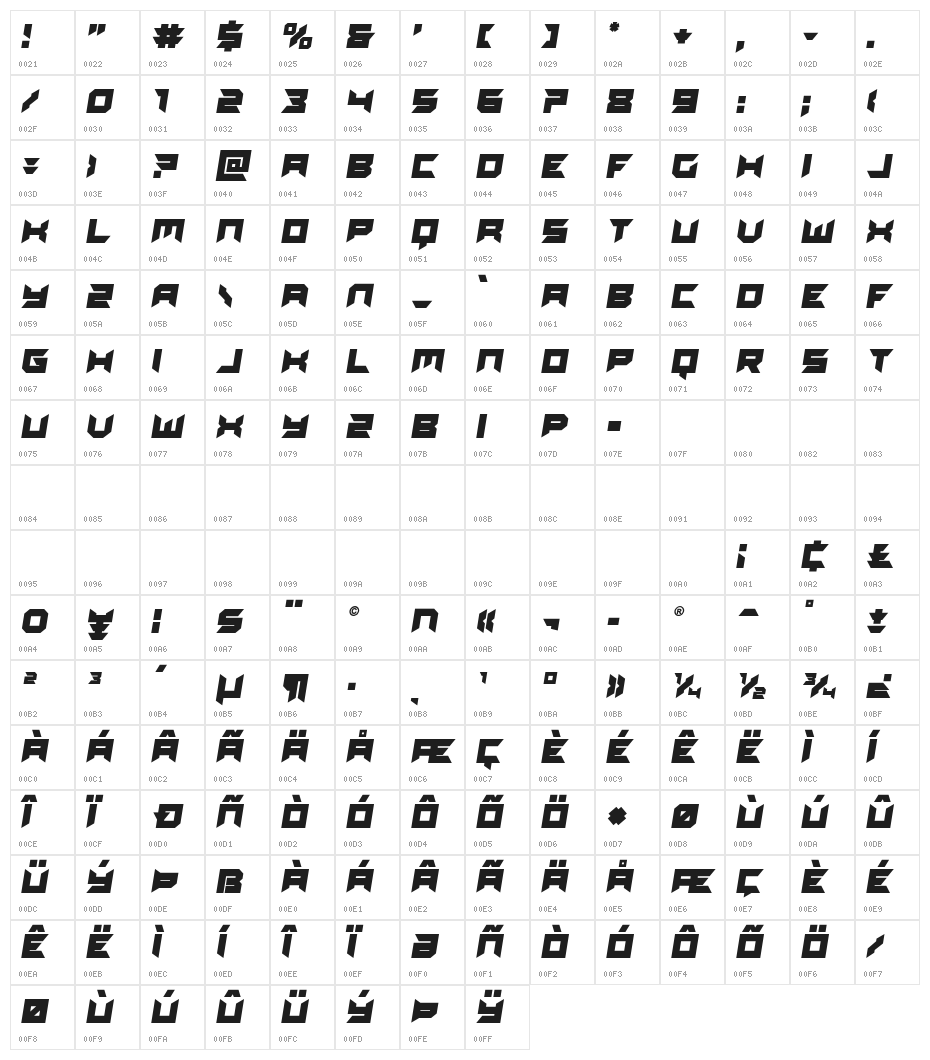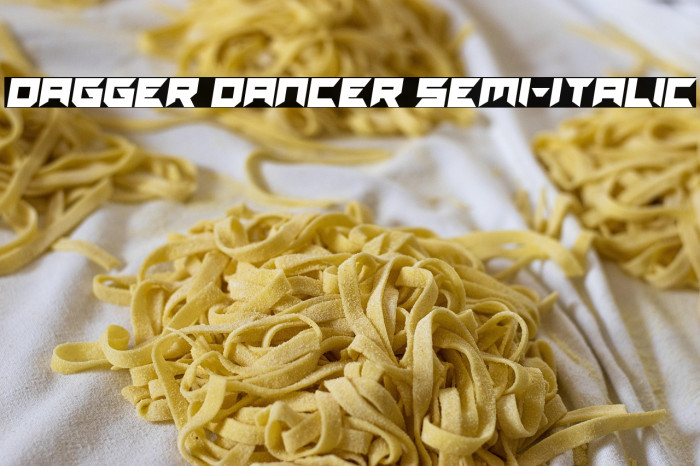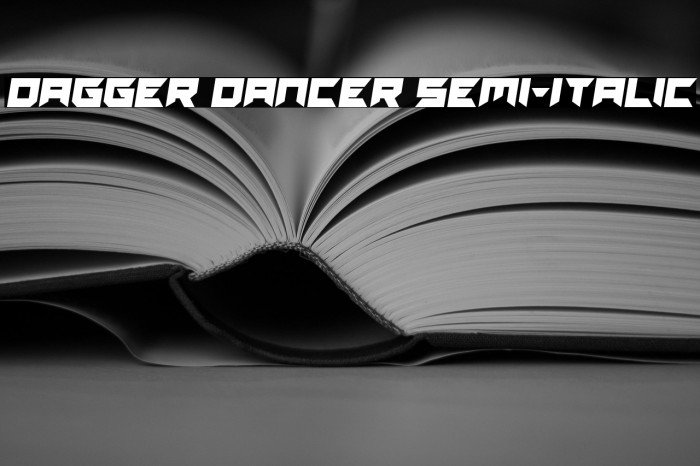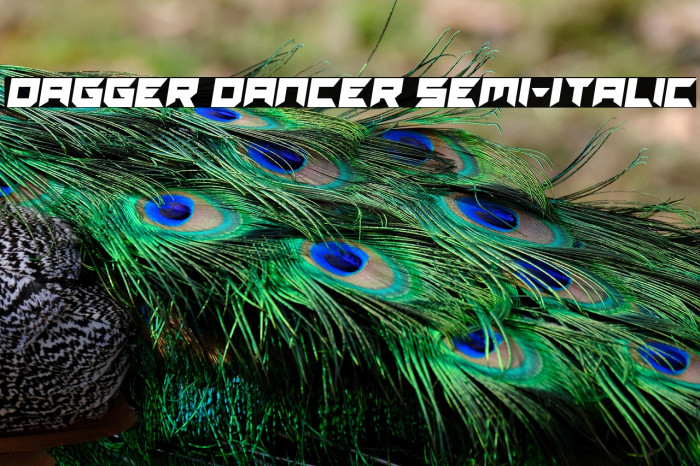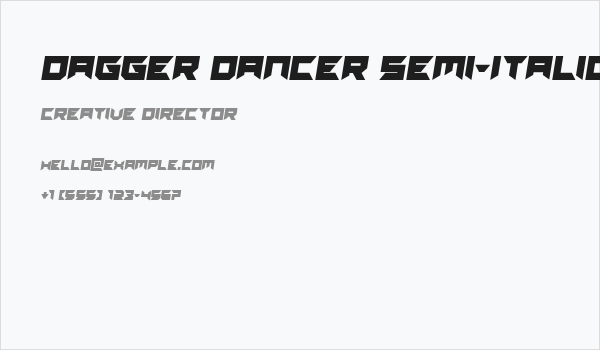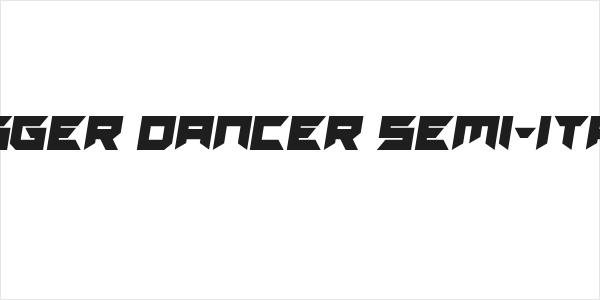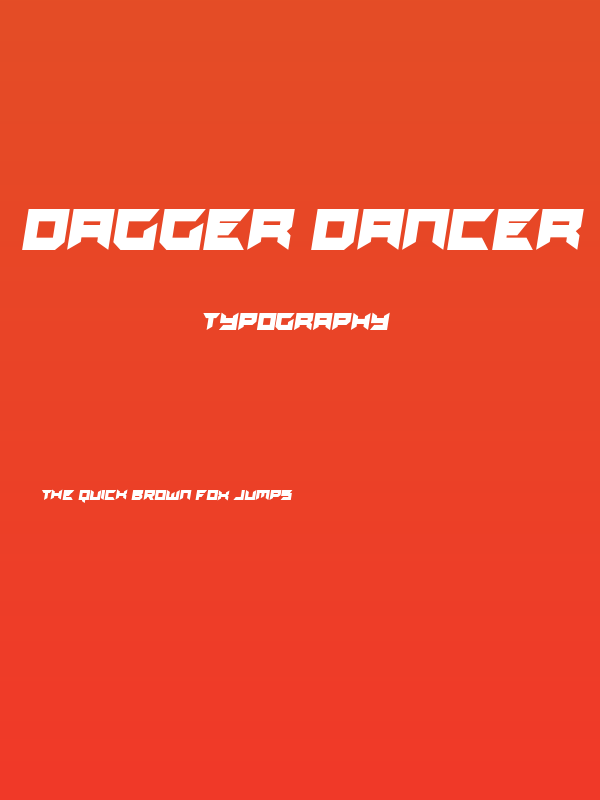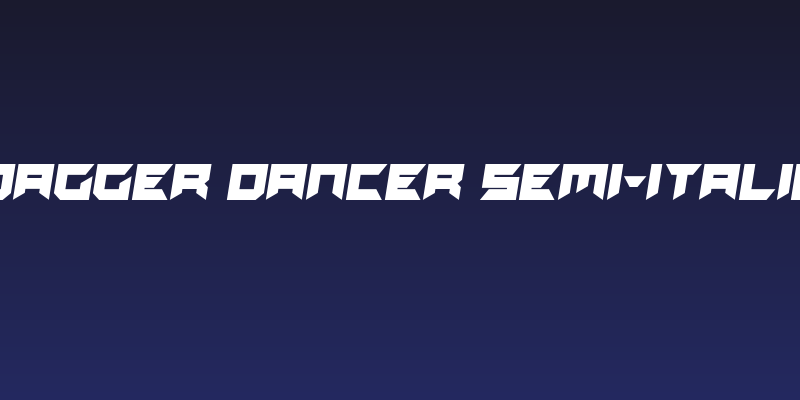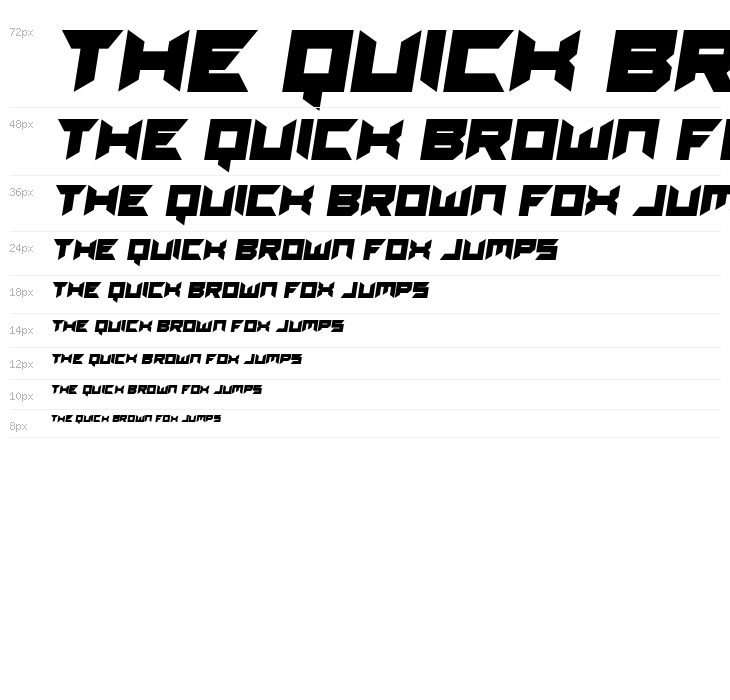
Dagger Dancer Semi-Italic Font
Dagger Dancer Semi-Italic Description
This font features a bold and dynamic design with sharp, angular edges that create a sense of movement and energy. The characters are slightly italicized, adding a touch of elegance to its otherwise aggressive appearance. The uppercase and lowercase letters maintain a consistent style, with each character exhibiting a unique geometric form. The numbers and special characters are designed to match the overall aesthetic, ensuring a cohesive look across all text. This font is ideal for projects that require a strong visual impact, such as branding, posters, or video game graphics.
| Proposed Projects | Ideal for branding, posters, video game graphics, and any project needing a strong visual impact. |